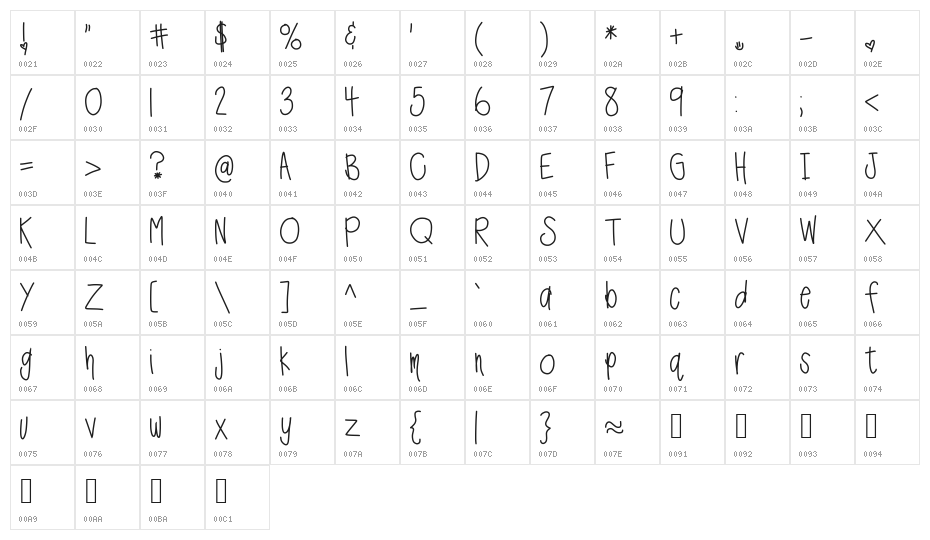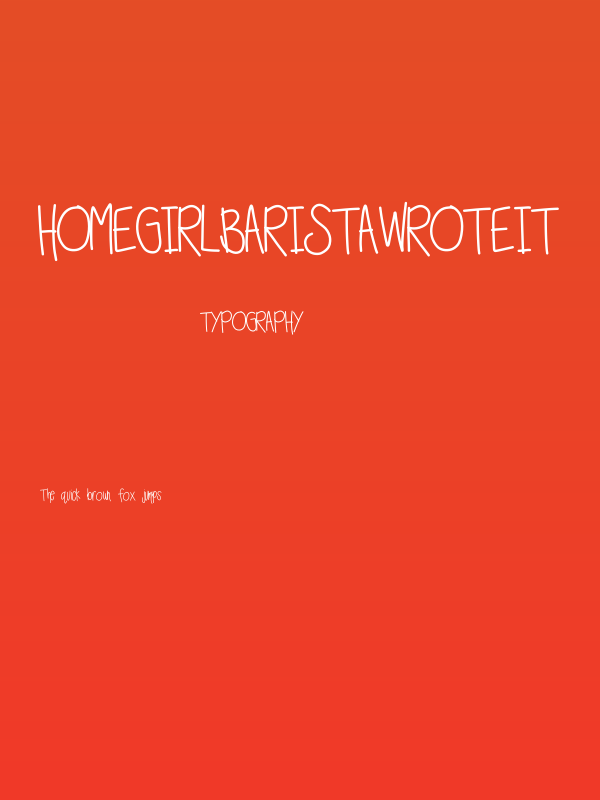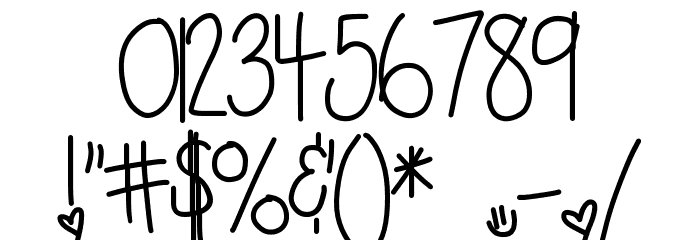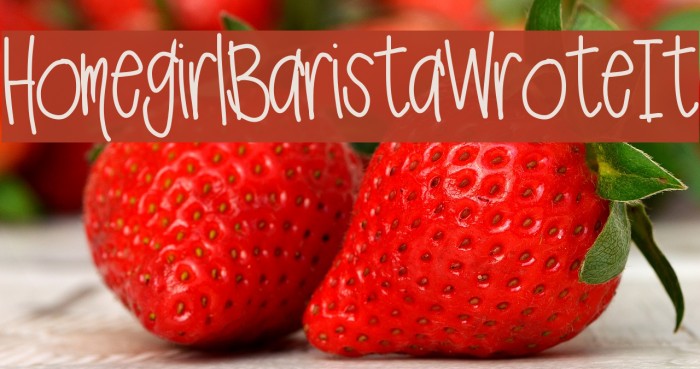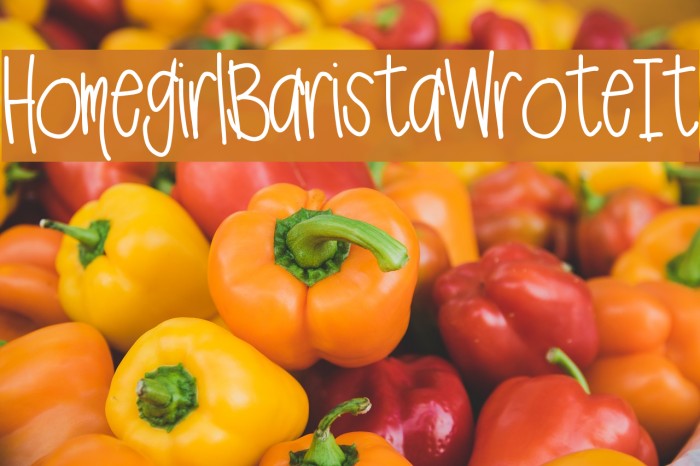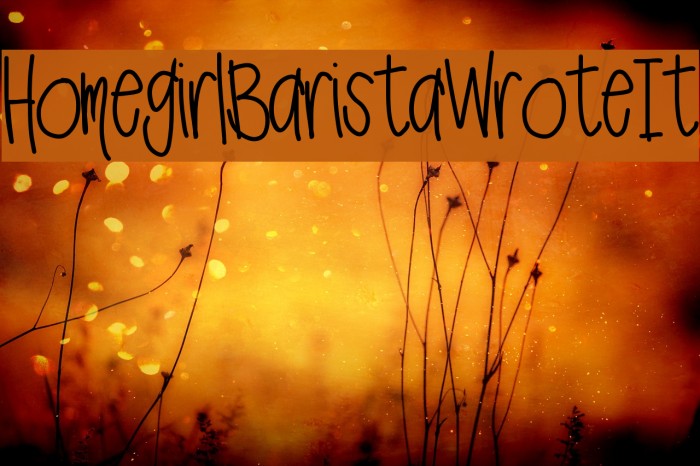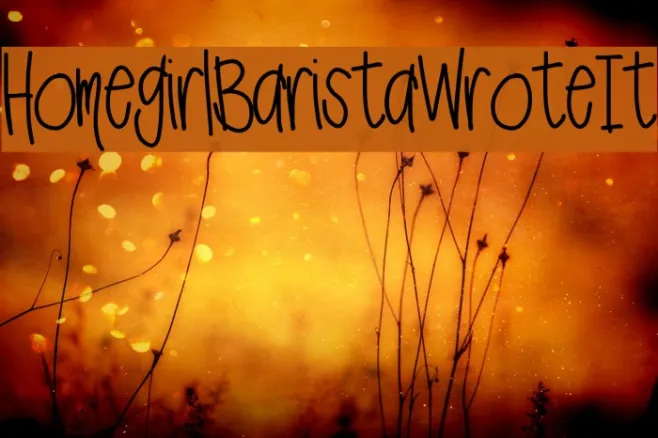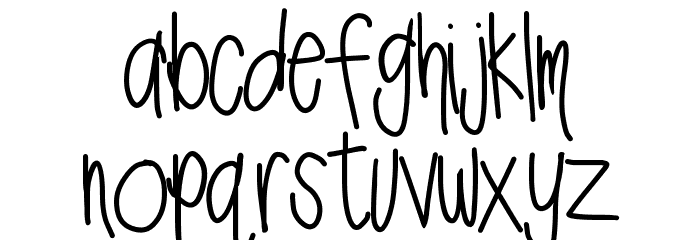
HomegirlBaristaWroteIt Font
HomegirlBaristaWroteIt Description
This playful and casual handwritten font exudes a friendly and approachable vibe. The letters are slightly irregular, giving it a natural, hand-drawn appearance. The strokes are consistent in thickness, contributing to a cohesive look. The uppercase letters are tall and slender, while the lowercase letters maintain a similar height, creating a harmonious balance. The numbers and special characters are crafted with the same whimsical style, making the font versatile for various uses. Its informal nature makes it perfect for projects that require a personal touch.
| Overall Style | Casual |
| Use Case | Logos, Headlines, Informal text |
| Proposed Projects | Ideal for greeting cards, personal blogs, children's books, and casual branding. |